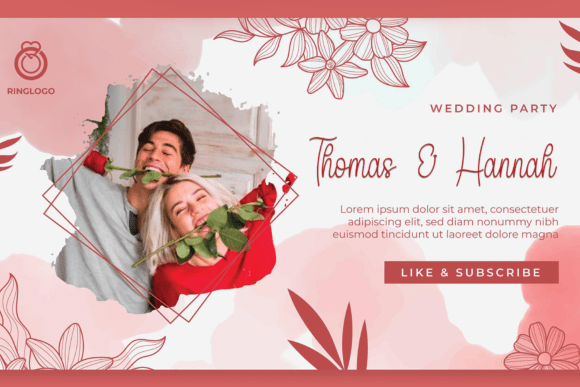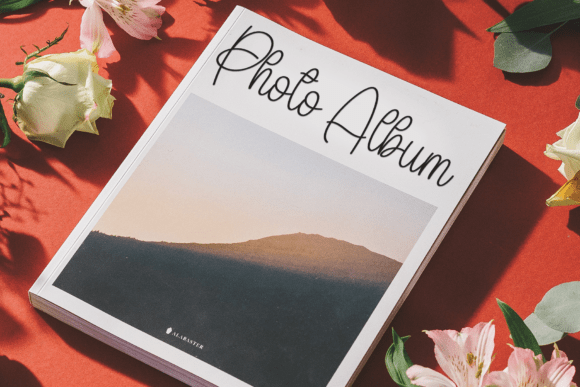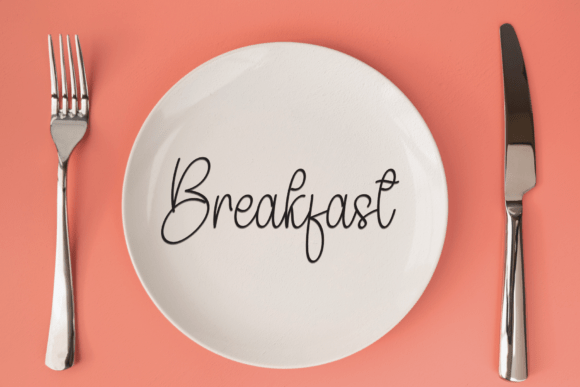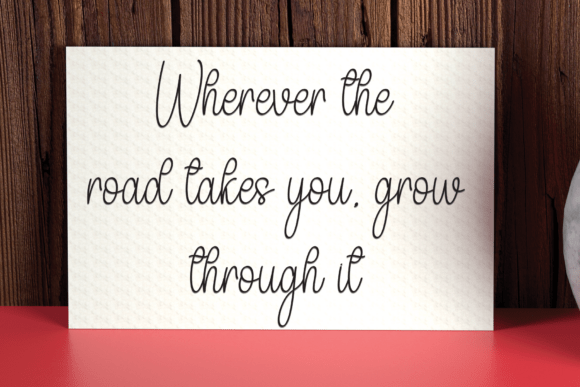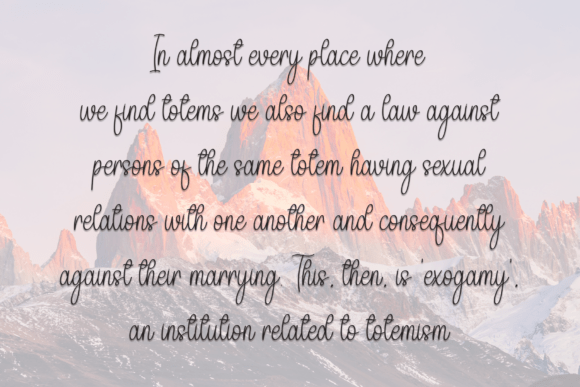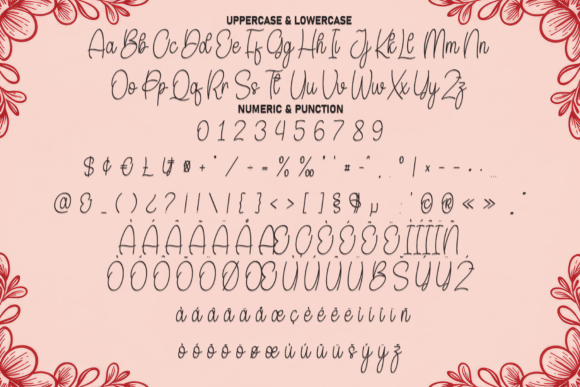
Introducing Happy Valentines Font: The Perfect Choice for Your Romantic Designs
Are you looking for a font that can add a touch of whimsy and romance to your designs? Look no further than Happy Valentines Font, a bespoke calligraphic display font that is sure to captivate your audience. With its warm and intimate aura, this font is perfect for creating wedding invites, greeting cards, and other artistic projects that require a dash of light-hearted fun.
The Unique Appeal of Happy Valentines Font
Happy Valentines Font is more than just a font – it’s an experience. Every character pulses with vitality, lending each word a vibrant rhythm and kinetic energy that breathes life and anticipation into your communications. The font’s distinct appeal lies in its ability to seamlessly infuse a dash of whimsical charm into your designs, making it an exemplary selection for designers and crafters looking to create captivating and romantic projects.
Perfect for Wedding Invites and Greeting Cards
Wedding invites and greeting cards are special occasions that require a font that can convey love, warmth, and intimacy. Happy Valentines Font is specifically designed to meet these requirements, with a warm and inviting tone that will make your designs stand out. Whether you’re a designer looking to create custom wedding stationery or a crafter making handmade greeting cards, this font is sure to impress.
Add a Touch of Whimsy to Your Designs
Happy Valentines Font is not just a font – it’s a way to add a touch of whimsy and playfulness to your designs. With its charismatic typography, you can create artistic projects that are fun, light-hearted, and engaging. Whether you’re designing for a client or working on a personal project, this font is sure to bring a smile to your face and inspire your creativity.
Revolutionize Your Artistic Output
Happy Valentines Font is more than just a font – it’s a tool that can revolutionize your artistic output. With its vibrant rhythm and kinetic energy, you can create designs that are not only visually stunning but also emotionally resonant. Whether you’re a designer, crafter, or artist, this font is sure to inspire you to create something truly special.
Key Features of Happy Valentines Font
- Bespoke calligraphic display font
- Warm and intimate aura
- Whimsical charm and playful tone
- Perfect for wedding invites, greeting cards, and artistic projects
- Every character pulses with vitality and kinetic energy
- Charismatic typography that radiates joy
Get Ready to Fall in Love with Happy Valentines Font
If you’re looking for a font that can add a touch of romance, whimsy, and playfulness to your designs, look no further than Happy Valentines Font. With its unique appeal and captivating charm, this font is sure to steal your heart and inspire your creativity. So why wait? Get ready to fall in love with Happy Valentines Font and revolutionize your artistic output today!
Tips for Using Happy Valentines Font
Here are some tips for using Happy Valentines Font in your designs:
- Use it for wedding invites and greeting cards to add a touch of romance and whimsy
- Experiment with different colors and textures to enhance the font’s playful tone
- Pair it with other fonts to create a unique and visually stunning design
- Use it for artistic projects that require a dash of light-hearted fun
In conclusion, Happy Valentines Font is a bespoke calligraphic display font that is sure to captivate your audience with its warm and intimate aura, whimsical charm, and playful tone. With its unique appeal and captivating charm, this font is perfect for designers and crafters looking to create romantic and artistic projects. So why wait? Get ready to fall in love with Happy Valentines Font and revolutionize your artistic output today!